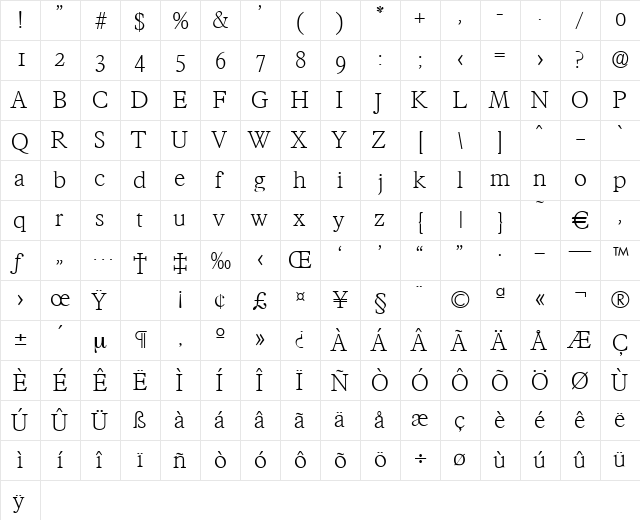
Francisco-Xlight Regular Font Preview
Francisco-Xlight Regular
Design Context for Francisco-Xlight Typeface
Francisco-Xlight takes a measured approach to typography — its balanced proportions and neutral character make it a reliable workhorse for both digital and print work. Its slender proportions lend an understated elegance to any composition.